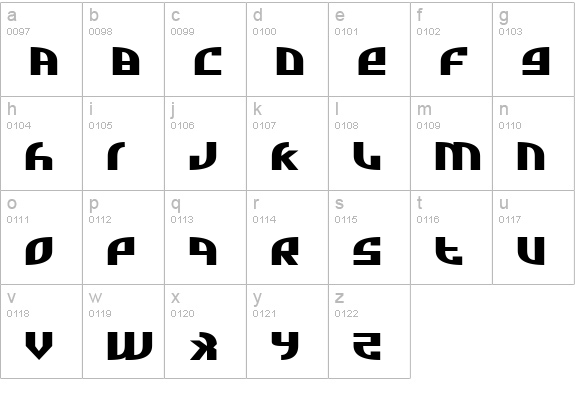
Zone Rider Ultra Expanded is an extreme-weight, display, extended-width variant in the Zone typeface family \xE2\x80\x94 well suited to extreme display use where maximum visual weight is required.
Zone Rider Ultra Expanded font is a bold and dynamic typeface that exudes power and energy. With its sleek lines and futuristic design, this font is perfect for making a statement in your designs. The ultra expanded style gives your text a modern and edgy look that is sure to capture attention. Best of all, Zone Rider Ultra Expanded font is available for free download at FontsMarket.com. Whether you're working on a poster, logo, or any other design project, this font will definitely make your text stand out. Don't miss out on the opportunity to add this unique and eye-catching font to your collection today!